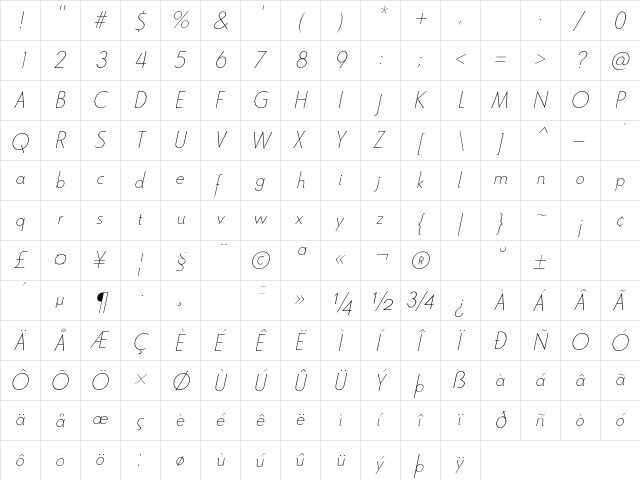
Le Havre Thin Italic Thin Italic
Design Context for Le Havre Thin Italic Typeface
Le Havre Thin Italic is a composed and adaptable typeface that performs quietly and consistently across a wide range of design contexts. The slanted form adds forward momentum and visual energy. The delicate stroke weight brings airiness and refinement to layouts.
Pro Tip: Try Le Havre Thin Italic for annotation and caption copy alongside an upright companion — the contrast in angle creates a dynamic but ordered typographic system.